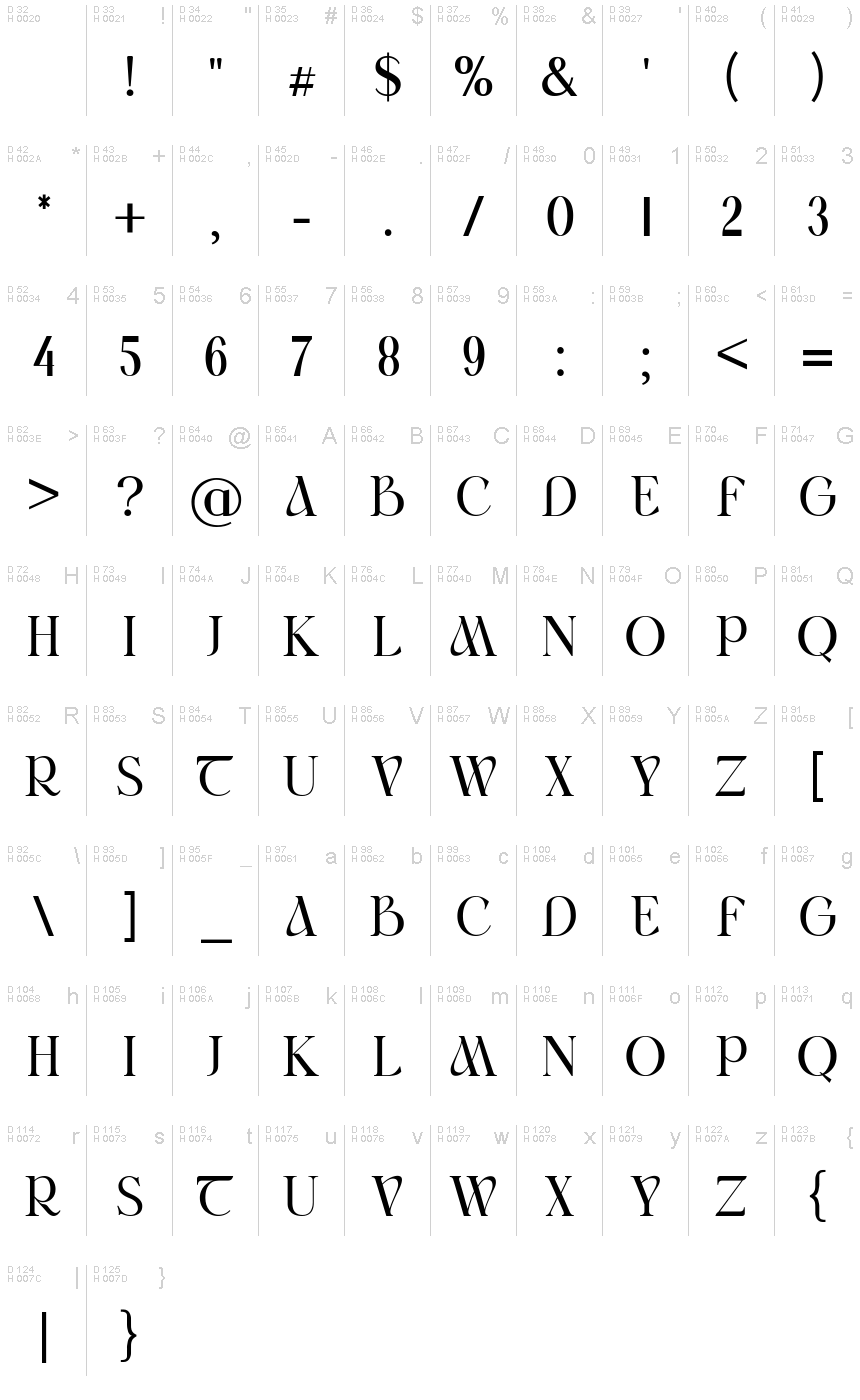
Rimogles
Rimogles, a captivating serif font designed by UI Creative, exudes a timeless elegance and commanding presence. Its distinctive letterforms radiate a refined sophistication, with sharp, angular serifs that lend an air of sophistication and authority. The font's balanced proportions and harmonious stroke contrast create a visually striking and impactful typographic experience. Rimogles' versatile nature allows it to seamlessly transition between formal and informal settings, making it a versatile choice for a wide range of design applications.
The font's versatility shines through its ability to adapt to diverse design contexts. Rimogles' refined yet modern aesthetic lends itself well to high-end branding, editorial layouts, and prestigious corporate communications. Its strong, confident presence also makes it an excellent choice for use in signage, packaging, and advertising campaigns, where it can command attention and convey a sense of authority and professionalism.